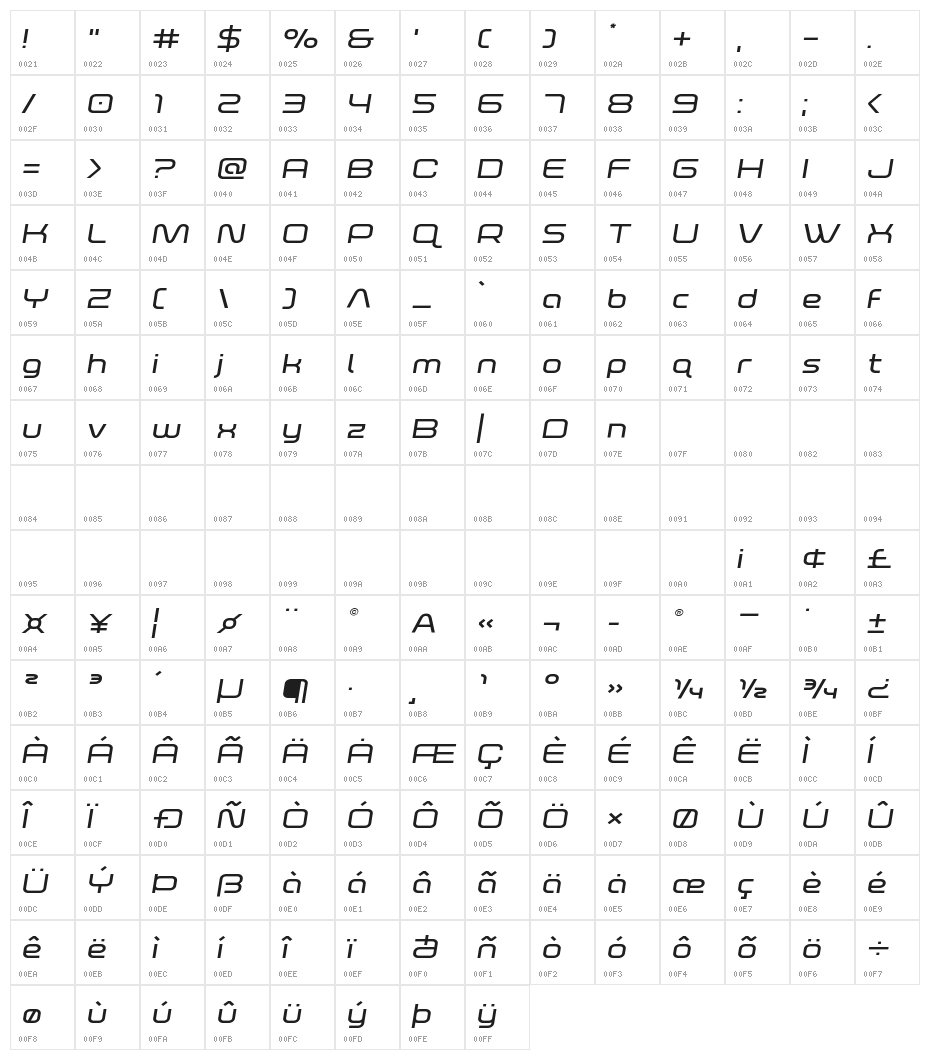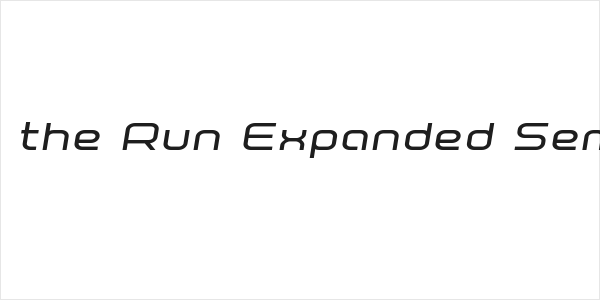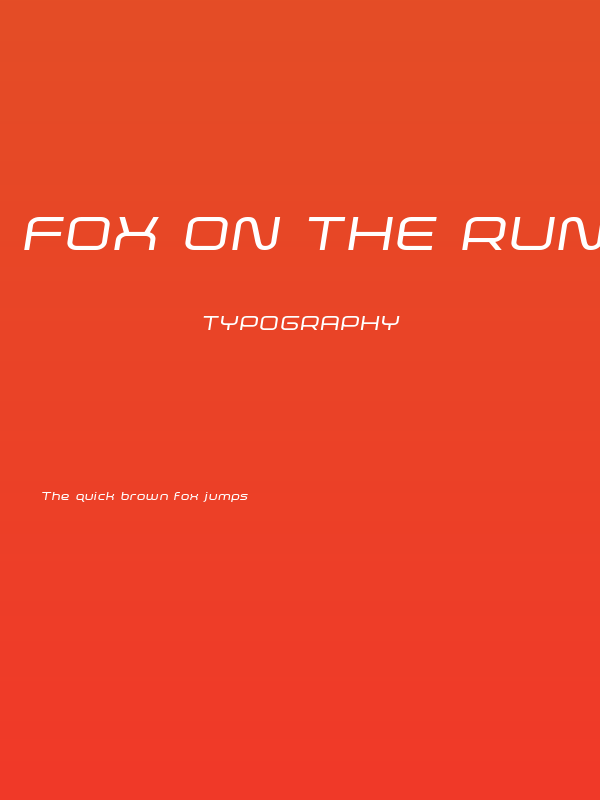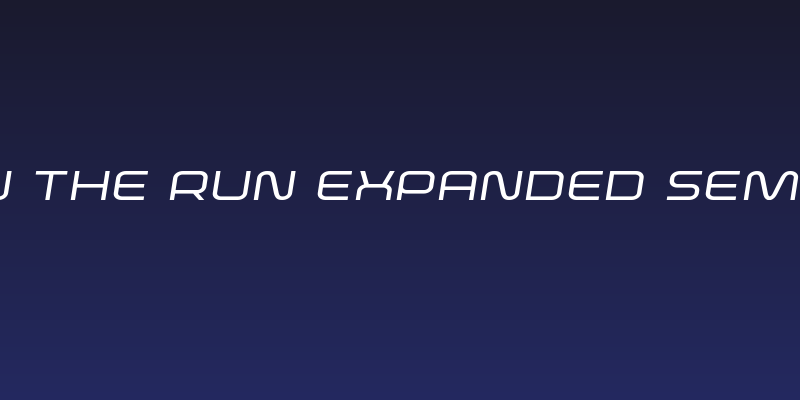
Fox on the Run Expanded Semi-Italic Font
Fox on the Run Expanded Semi-Italic Description
This font features a sleek, modern design with a semi-italic slant that adds a dynamic feel to the text. The characters are expanded, giving them a wider appearance that enhances readability and presence. The strokes are consistent in thickness, providing a uniform look across all characters. The rounded edges and smooth curves contribute to a futuristic and clean aesthetic, making it suitable for contemporary design projects. The font includes a full set of uppercase and lowercase letters, numbers, and a variety of special characters, ensuring versatility in usage.
| Use Case | Headlines, Logos, Digital interfaces |
| Proposed Projects | Ideal for branding, advertising, and digital interfaces where a modern and dynamic appearance is desired. |